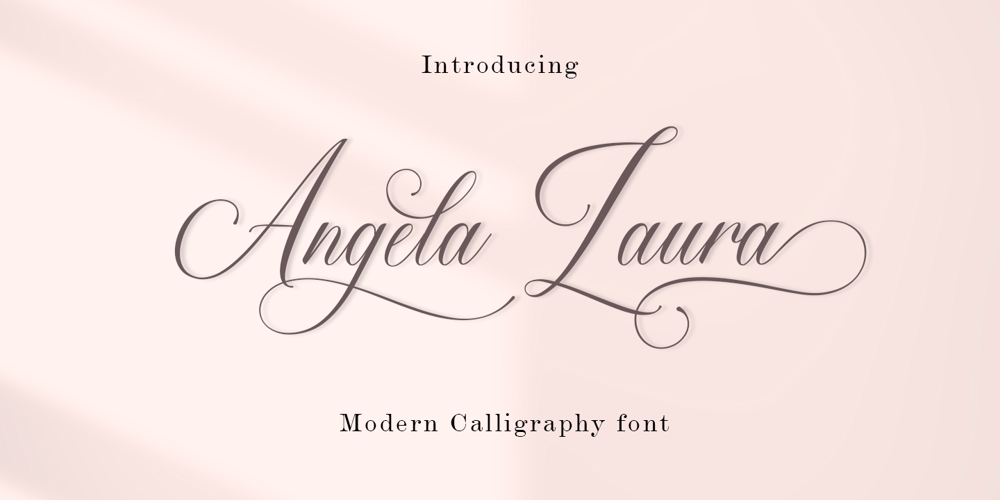
Angela Laura Font Family was designed by Amar Lettering and published by Amarlettering. Angela Laura contains 1 styles and family package options. Experience the elegance of Font Angela Laura – a modern, script font beautifully balancing delicateness with a refined flair. Each lean letterform is thoughtfully created with fluid brushstrokes and subtle curves, exhibiting sophistication and finesse in every glyph. Font Angela Laura is the consummate selection for those desiring an essence of high-style elegance. Its chic sophistication enhances lavish wedding invitations, luxurious branding, and exquisite editorial designs. Indeed, Font Angela Laura is not just a font but rather, it’s a style statement.